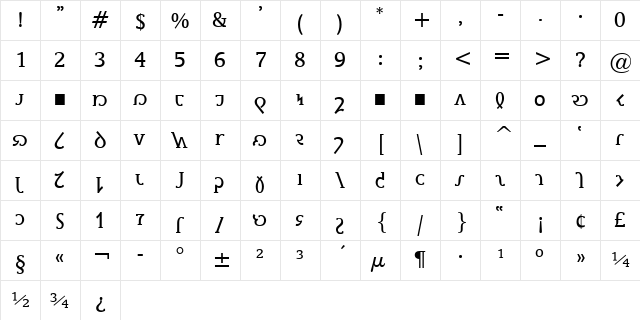
Shaw Roman No. 1 Regular
Design Context for Shaw Roman No. 1 Typeface
Shaw Roman No. 1 takes a measured approach to typography — its balanced proportions and neutral character make it a reliable workhorse for both digital and print work.
Pro Tip: Use Shaw Roman No. 1 in both headline and body roles to test its range before committing to a single application.